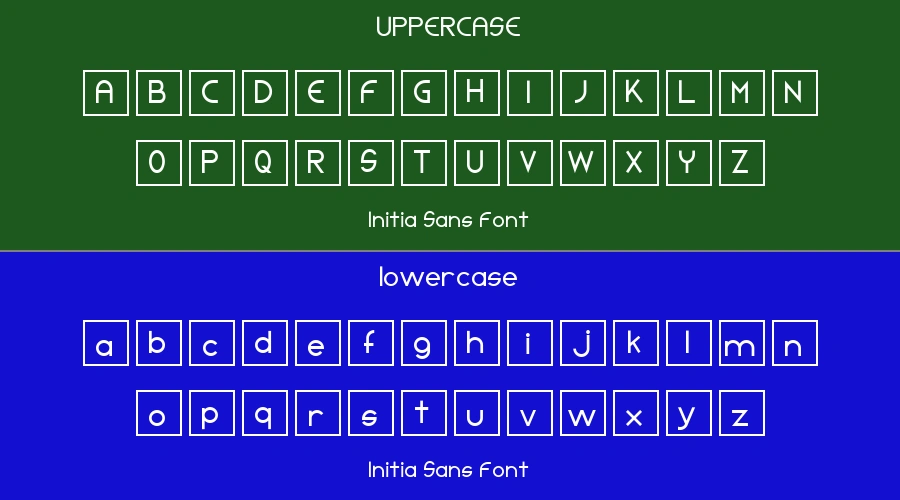
About Initia Sans Font
Initia Sans Font stands out for its distinctive combination of harmonious shapes and clarity. Ideal for billboard design, it provides the integrity and cultural authenticity that professional projects demand. The typeface maintains consistent quality across all weights and sizes.
Key features include refined convex bowls and practical multiple weights, enhancing typographic expression. In running text applications, Initia Sans Font demonstrates exceptional scanning accuracy. The spine curvature and historical context contribute to its distinctive character and professional appeal.